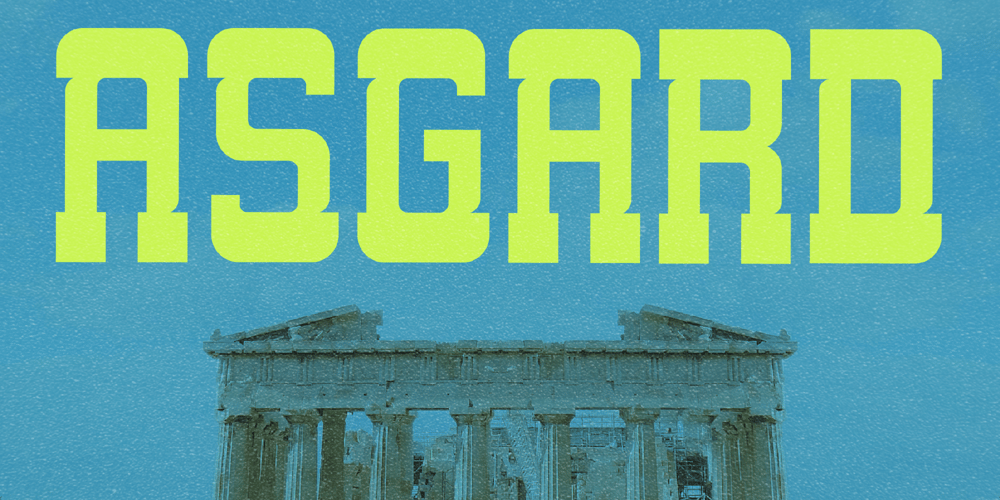
Asgard
Asgard font
Asgard Font Family was designed by Heru Utama Putra and published by Letterena Studios. Asgard contains 2 styles and family package options. Asgard is a serif modern and classic typeface that has its own unique style & modern look.This typeface is perfect for an elegant & luxury logo, book or movie title design, fashion brand, magazine, clothes, lettering, quotes, and so much more.